Transform your comic creations from good to great with the perfect font! In this article, we’ve selected a list of 20 must-try comic fonts available in Canva. Whether you’re working on a superhero saga, a hilarious strip, or a dramatic graphic novel, the right font can make all the difference. Not only are these selections eye-catching, but they’re also highly readable, ensuring that your audience stays engaged from the first panel to the last. These fonts are known for their bold and dynamic designs, perfect for comic design, YouTube thumbnails, magazines, and product logos. They offer a range of styles, from classic to contemporary, and can add a fun and lighthearted touch to your designs
1. Rig Solid Bold Halftone
Why it is a must-try comic font: This font features a halftone texture, giving it a retro comic feel. The boldness of Rig Solid makes it excellent for titles or emphasis in comic strips, ensuring readability and capturing the essence of classic comics.
2. Bungee Shade
Why it is a must-try comic font: Known for its layered, 3D effect, Bungee Shade is perfect for comic book covers or headings. Its shadowed feature creates depth, making text pop and stand out, ideal for dynamic comic storytelling.
3. Noot
Why it is a must-try comic font: With its clean and rounded appearance, Noot offers a friendly and approachable vibe, suitable for light-hearted and humorous comics. Its simplicity ensures clarity in dialogue bubbles and narration panels.
4. Kapsalon
Why it is a must-try comic font: This font has a quirky, uneven style that embodies the spontaneous nature of many comics. Kapsalon’s unique character shapes make it a great choice for adding personality to dialogue and captions.
5. Bobby Jones
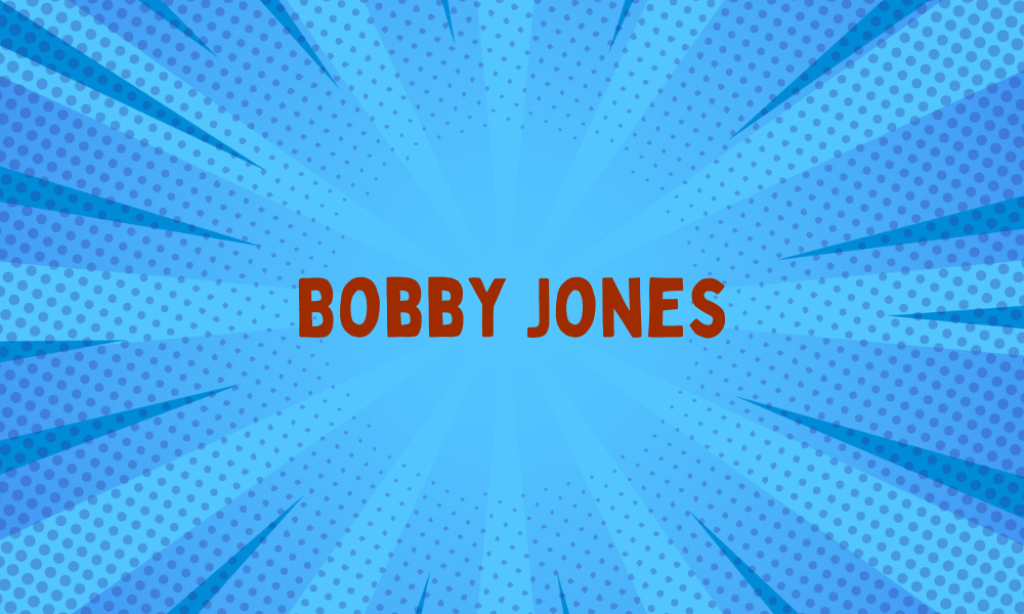
Why it is a must-try comic font: This playful, curvy font adds a touch of whimsy and fun, perfect for comics aimed at a younger audience or those with a more lighthearted narrative.
6. Cosmic Octo
Why it is a must-try comic font: As the name suggests, Cosmic Octo brings a space-age, futuristic feel to comic texts, ideal for sci-fi or adventure-themed stories. Its stylized letterforms help establish an otherworldly setting.
7. ITC Magnifico Daytime
Why it is a must-try comic font: This font’s elegant and dramatic flair suits superhero and action comics well. The strong, sharp letterforms of ITC Magnifico Daytime add intensity and excitement to the story.
8. Monami
Why it is a must-try comic font: Monami provides a handwritten look that can add a personal touch to comic strips, perfect for diary-style graphics or first-person narratives, giving them an authentic and intimate feel.
9. BM Hanna
Why it is a must-try comic font: This Korean font, with its round and bubbly style, adds a cute and playful element to comics, great for lighthearted stories or to appeal to younger readers.
10. Balloon Drop Shadow
Why it is a must-try comic font: Featuring a classic comic style with a shadow effect, this font mimics the traditional comic book text and is ideal for emphasizing speech in speech bubbles.
11. Adumu Regular
Why it is a must-try comic font: Adumu Regular has a bold and clear structure, making it easy to read, which is essential for comic book dialogue. Its solid, straightforward style makes it versatile for various comic genres.
12. TT Masters
Why it is a must-try comic font: This modern and geometric font offers a sleek and professional look, suitable for futuristic or high-tech comic themes, providing a clean and sharp narrative structure.
13. Cave Age
Why it is a must-try comic font: With its rough, stone-like texture, Cave Age is perfect for prehistoric or adventure comics, adding an element of ruggedness and historical ambiance to the text.
14. Rague Shine
Why it is a must-try comic font: This font has a unique, ornate style that can add a touch of elegance or mystery to comic stories, suitable for fantasy or historical narratives.
15. Brother
Why it is a must-try comic font: Offering a strong, bold look with a friendly edge, Brother is versatile enough for both serious and comedic comics, providing a solid and clear text for readers.
16. Sigmar One
Why it is a must-try comic font: Known for its thick, heavy letters, Sigmar One is impactful and attention-grabbing, making it perfect for titles or important messages within the comic.
17. Hit and Run
Why it is a must-try comic font: This grungy, dynamic font is ideal for action-packed comics or stories with intense themes, adding a raw, energetic vibe to the text.
18. Core Bandi
Why it is a must-try comic font: Core Bandi’s playful and rounded style lends a casual, approachable feel to comics, suitable for children’s stories or light-hearted narratives.
19. Bowl Shadow
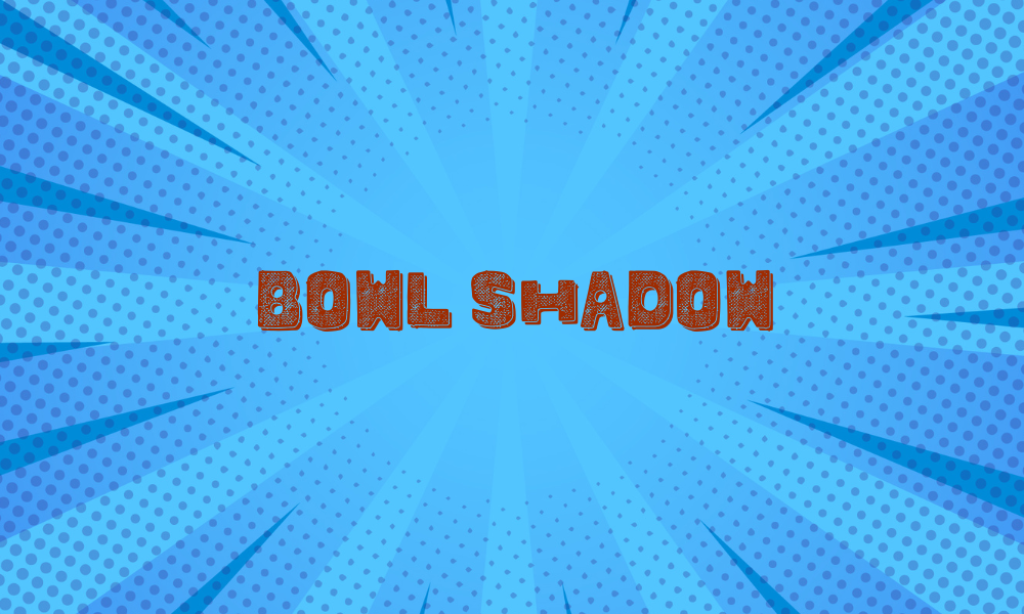
Why it is a must-try comic font: Featuring a 3D shadow effect, Bowl Shadow adds depth and emphasis to comic texts, enhancing the visual appeal of titles and important phrases.
20. Lot
Why it is a must-try comic font: Lot’s minimalist and clean design offers a modern touch to comics, ensuring readability while keeping the layout sleek and contemporary, suitable for a wide range of comic styles.